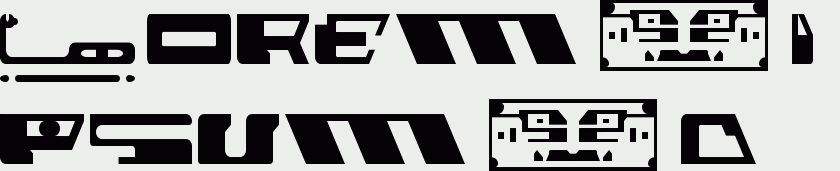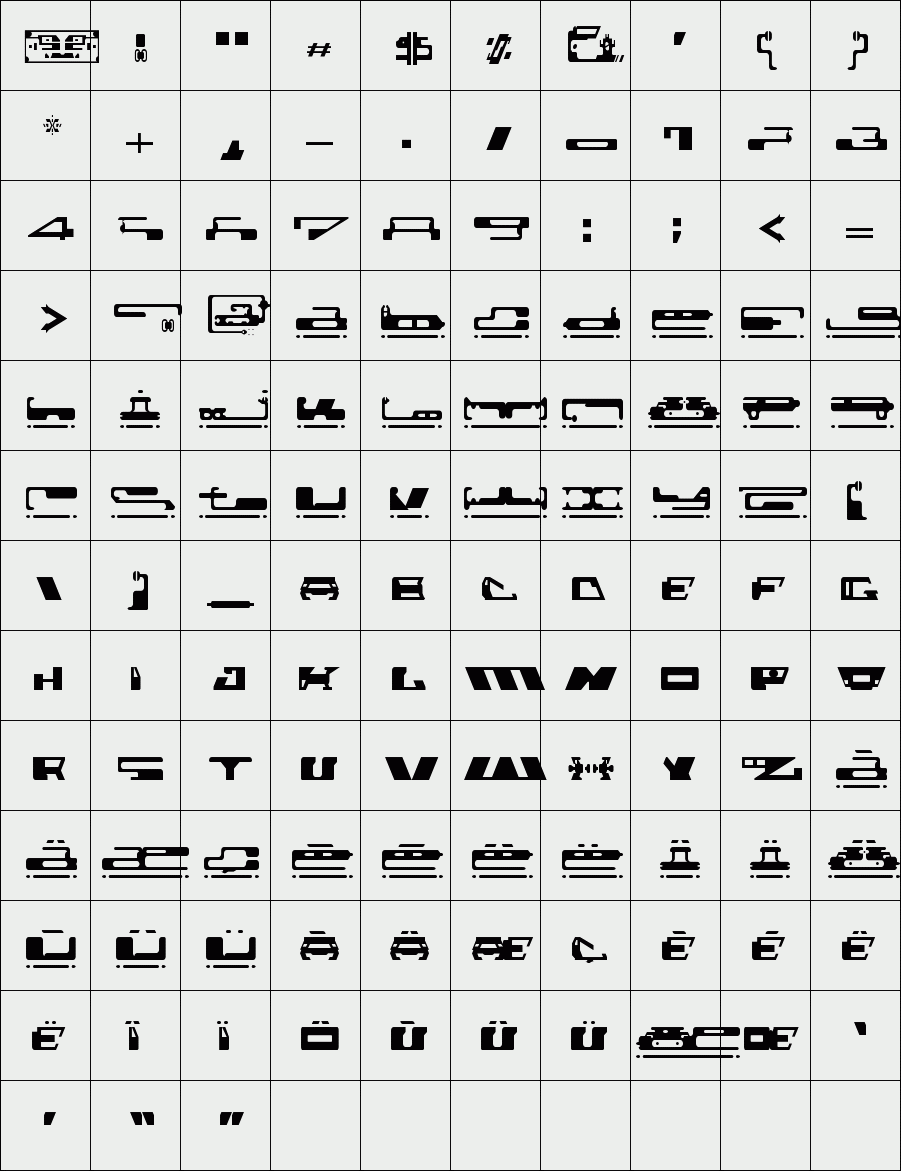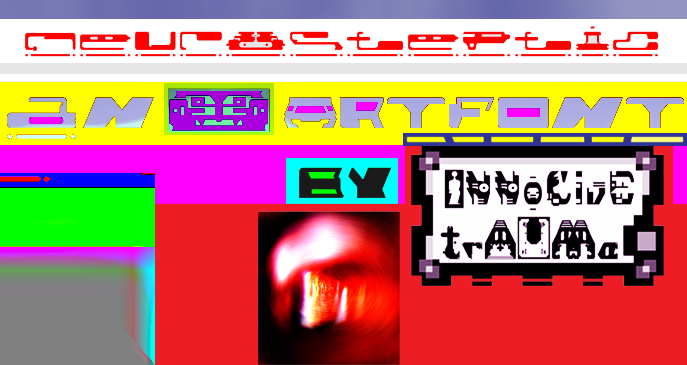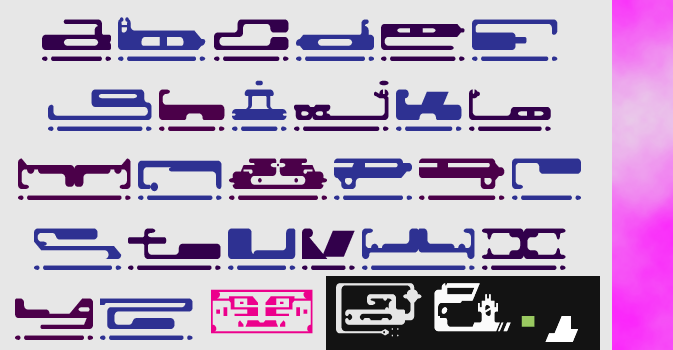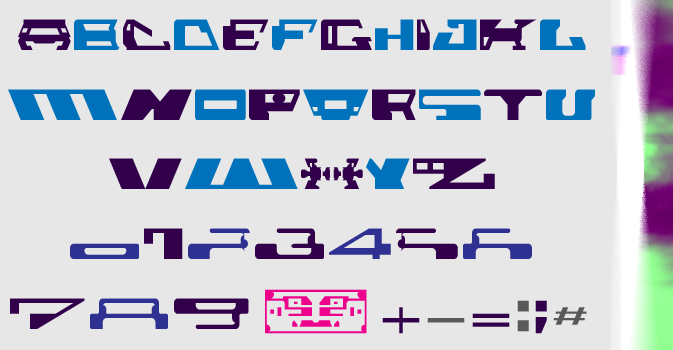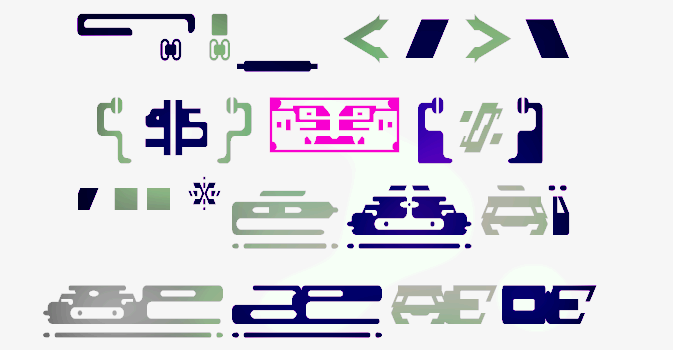
trAUMa 80 / Neurosteptic
"Neurosteptic", like all the "trAUMa" series, works at the frontier between Art & Type Design, Figuration & Abstraction, each font is a comprehensive world in which every glyph is a "living" entity. But put together they can produce your messages in the most accurate way.